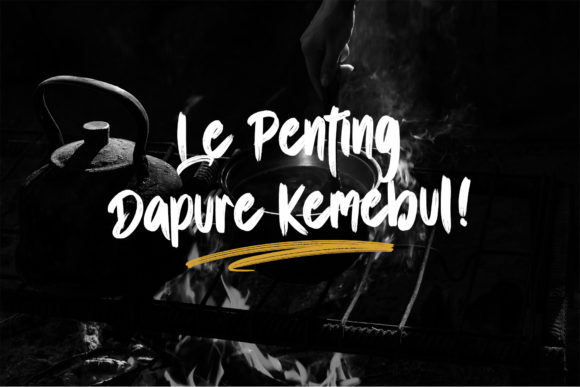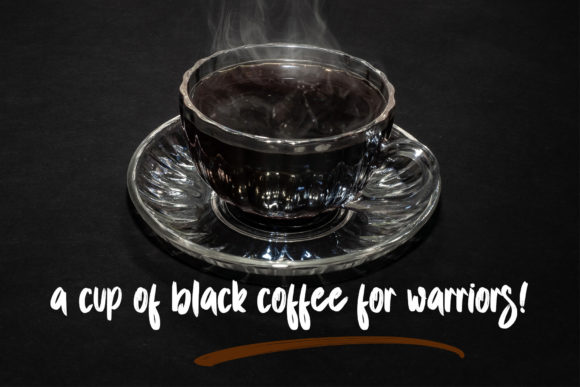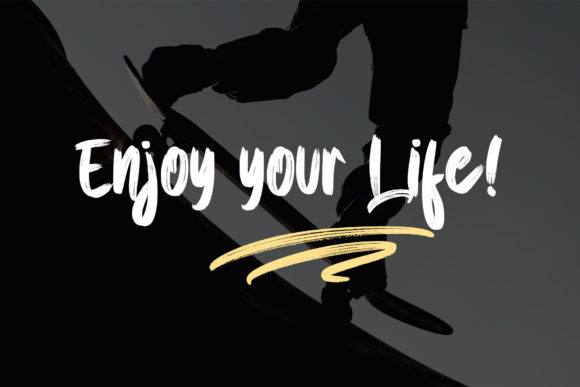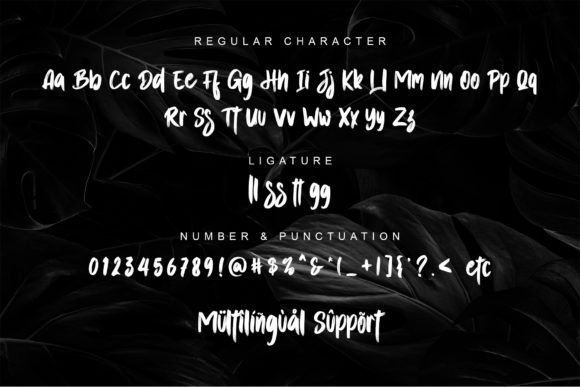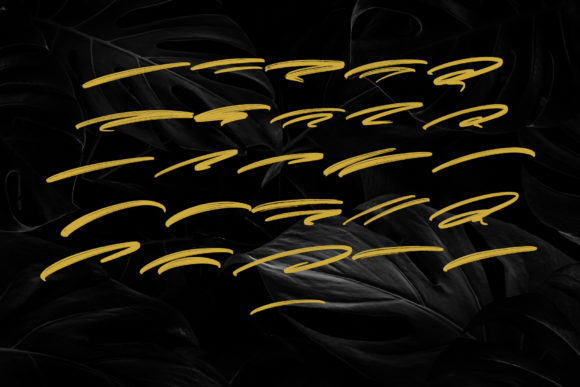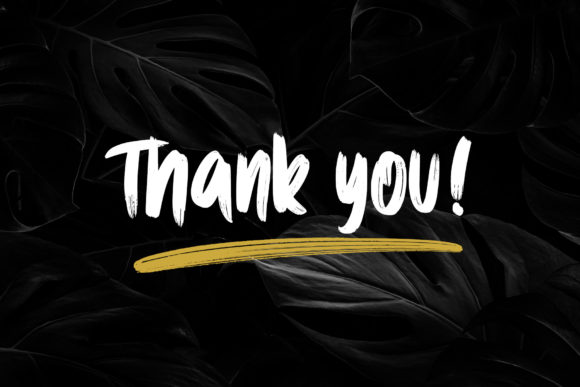
The Designer’s Delight: Asutenan Font
Have you ever been in the middle of a design project, pouring your heart and soul into it, only to hit a roadblock when it comes to choosing the perfect font? I certainly have! It was during one of those moments, working on a branding project for a client who wanted something elegant yet playful, that I stumbled upon the beautiful Asutenan font. And let me tell you, it was love at first sight! 💕
First Impressions: A Personal Review
Asutenan is a strong original handwritten font that exudes a unique feel. It’s natural, elegant, and cursive, making it incredibly legible. I was immediately drawn to its versatility – it’s perfect for a wide variety of designs such as headlines, titles, headings, logos, branding, posters, invitations, books, and any other creative project you can think of.
What I Love About Asutenan ✨
• ✅ Unique and original design
• ✅ Elegant and cursive, yet legible
• ✅ Versatile – perfect for various design projects
• ✅ PUA encoded for easy access to glyphs and ligatures
• ⚠️ Some users might find the font a bit too ornate for certain projects
• ⚠️ Limited availability of language support
The Story Behind Asutenan
Asutenan was designed with the intention of creating a unique and elegant handwritten font that would stand out in any design project. The designer aimed to create a font that was both natural and legible, with a touch of playfulness. The result is a beautiful font that’s perfect for a wide range of design applications.
What is Asutenan font? Asutenan is a strong original handwritten font with a unique feel. It’s natural, elegant, and cursive, making it incredibly legible.
What is PUA encoding? PUA (Private Use Area) encoding is a way of encoding fonts that allows for a wide range of glyphs and ligatures to be accessed.
Is Asutenan easy to read? Yes, Asutenan is incredibly legible, making it perfect for body text and other long-form content.
In conclusion, Asutenan is a beautiful and versatile font that’s perfect for a wide range of design projects. With its unique feel, elegant design, and OpenType features, it’s a great addition to any designer’s toolkit. Whether you’re working on a branding project, creating a poster, or designing a book, Asutenan is sure to impress!